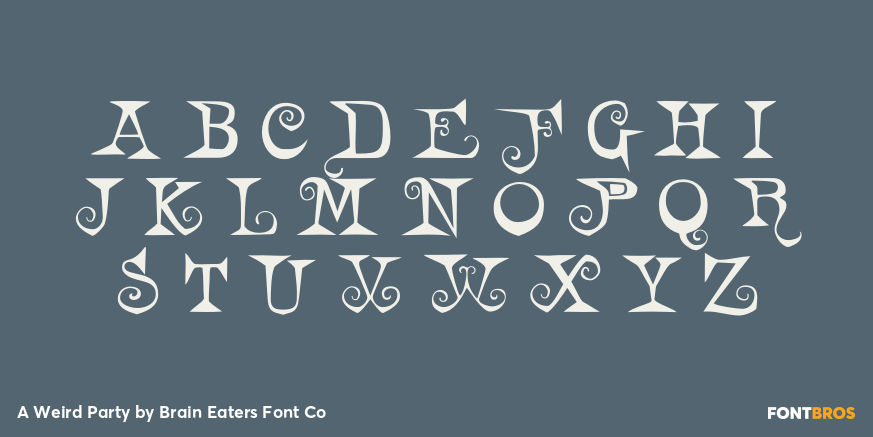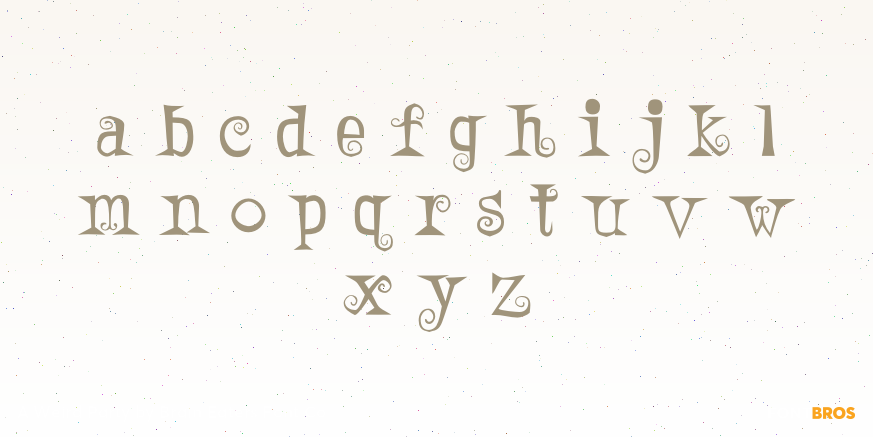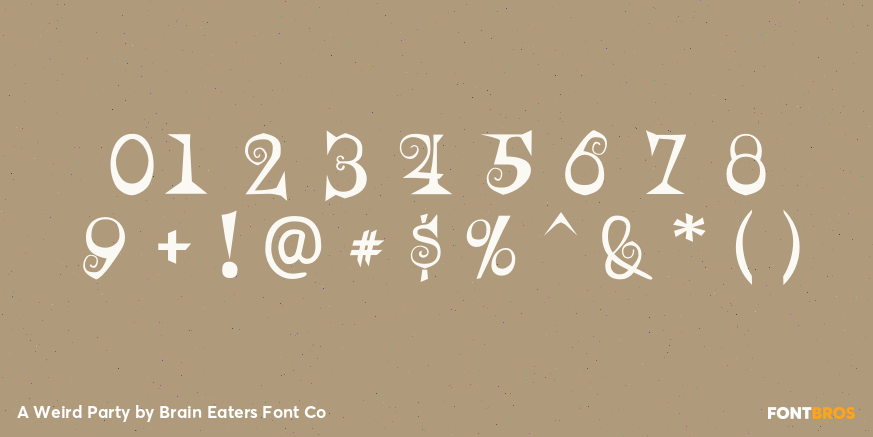
A Weird Party
A Weird Party is a playful display font family with an offbeat, wacky personality and a clear special-effect feel. Its letterforms lean fun and unconventional, giving headlines and short phrases a quirky, animated presence that feels made to stand out.
With 2 styles included—Regular and Alt—this family gives you a little extra flexibility when you want a more varied, custom-looking result. It’s a strong fit for posters, party graphics, themed branding, novelty packaging, social posts, and other decorative display work where a strange, fun tone is part of the appeal.
Created by Brain Eaters Font Co, this family is a smart pick for designers looking to add humor, oddball energy, and a deliberately weird twist to their typography.